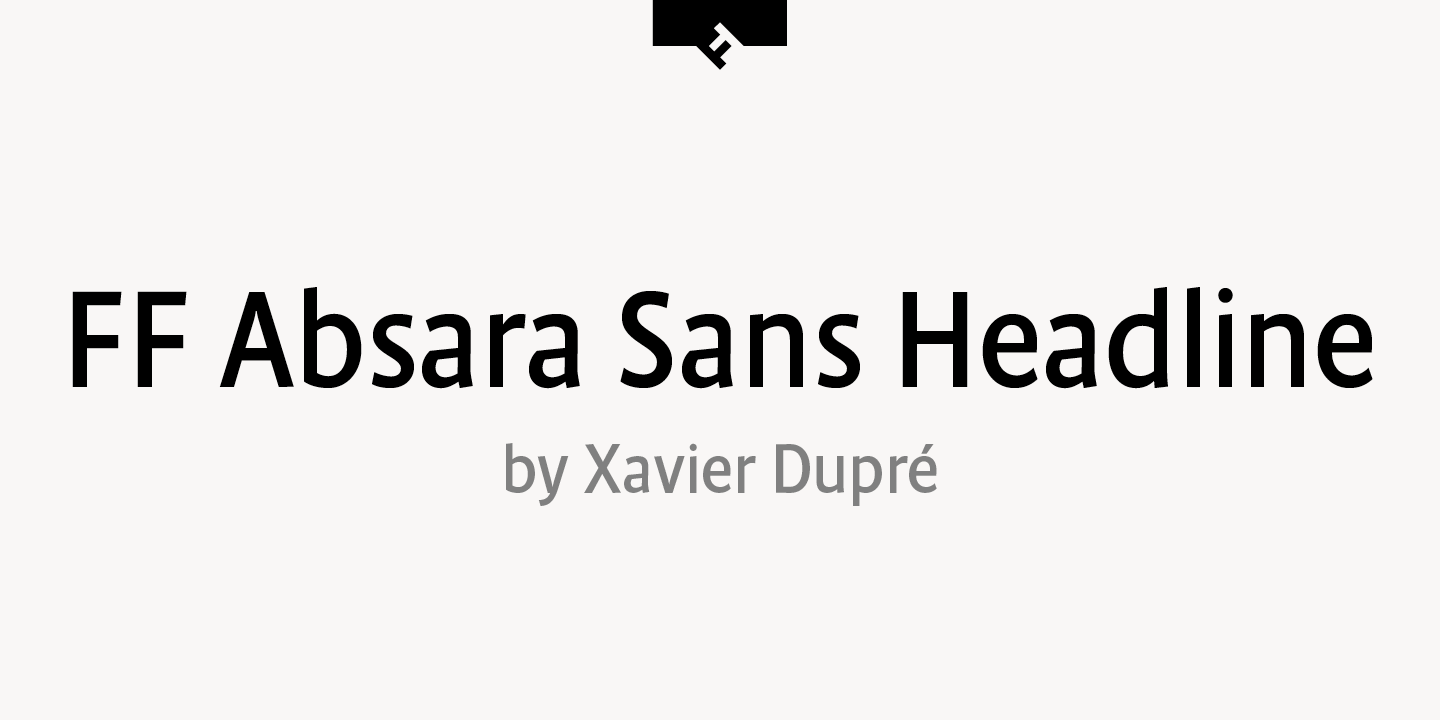
FF Absara Sans Headline Font is perfect for newspaper headlines, magazine covers, digital news platforms, editorial layouts, press releases, breaking news graphics, and journalistic publications that require commanding, attention-grabbing typography for maximum reader engagement.
This font is exciting because it combines journalistic authority with contemporary clarity, featuring bold, impactful letterforms that command immediate attention while maintaining exceptional legibility for critical news delivery and editorial excellence.
The FF Absara Sans Headline Font family includes light, regular, bold, and black weights with condensed variants, offering uppercase and lowercase letters, news numerals, editorial symbols, journalistic punctuation marks, and headline elements designed for professional media applications.
Editorial designers consistently choose FF Absara Sans Headline Font Free Download for projects requiring journalistic credibility and headline impact. This powerful typeface transforms news communications into compelling statements of editorial authority that immediately capture reader attention and establish media credibility. The font's commanding character makes it exceptionally effective for newspapers, digital media outlets, and publishing houses where news impact and editorial trustworthiness must be communicated through every headline and story presentation. Its journalistic heritage bridges traditional newspaper design with modern digital media requirements, making it invaluable for news organizations adapting to multi-platform publishing demands. The precisely crafted letterforms maintain their headline power across print publications and digital screens, ensuring consistent brand recognition and editorial authority. Whether you're developing news website interfaces, creating magazine layout systems, or designing breaking news graphics, this typeface provides the journalistic voice and visual impact that distinguishes serious news organizations from entertainment media, establishing immediate credibility among readers who demand reliable news sources and expect professional editorial standards in their daily information consumption and media engagement experiences.